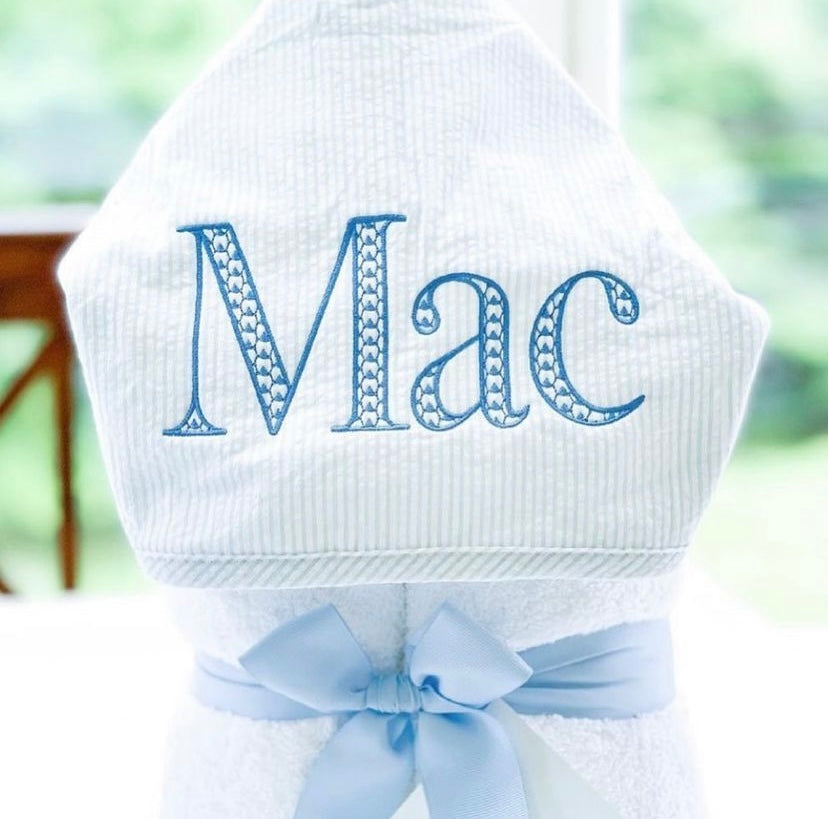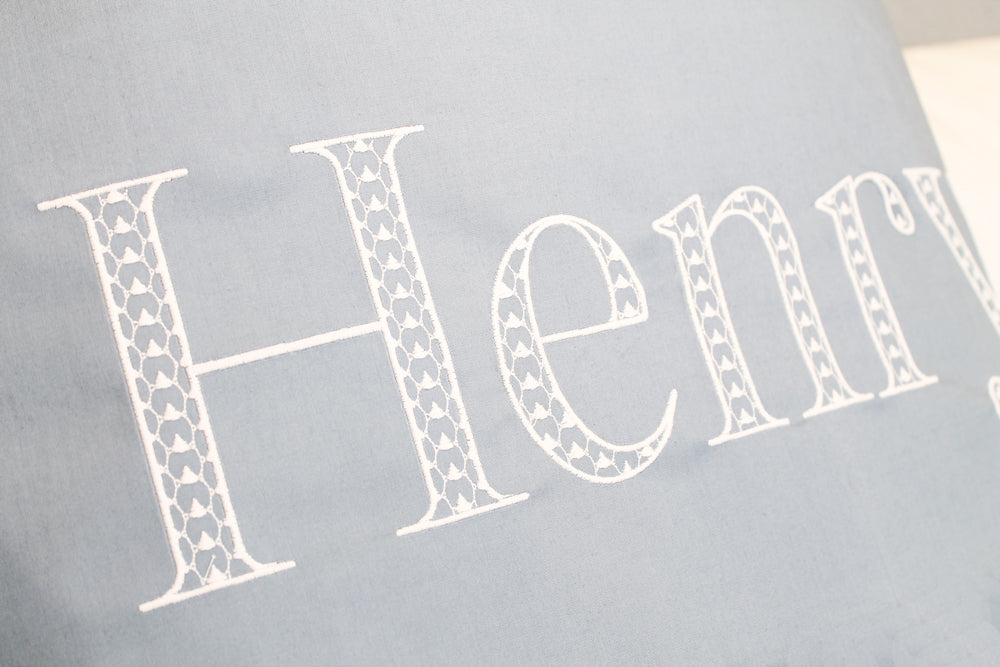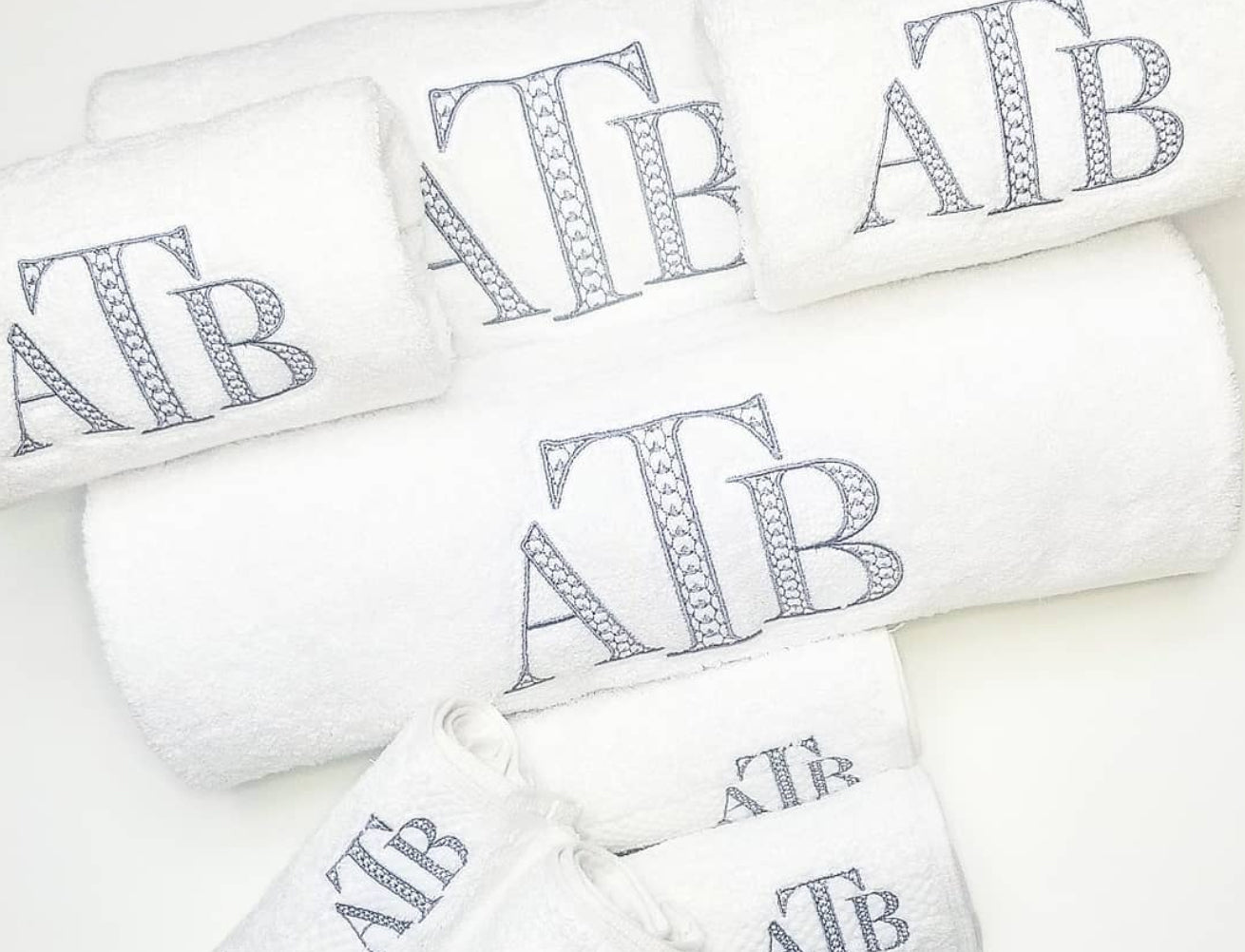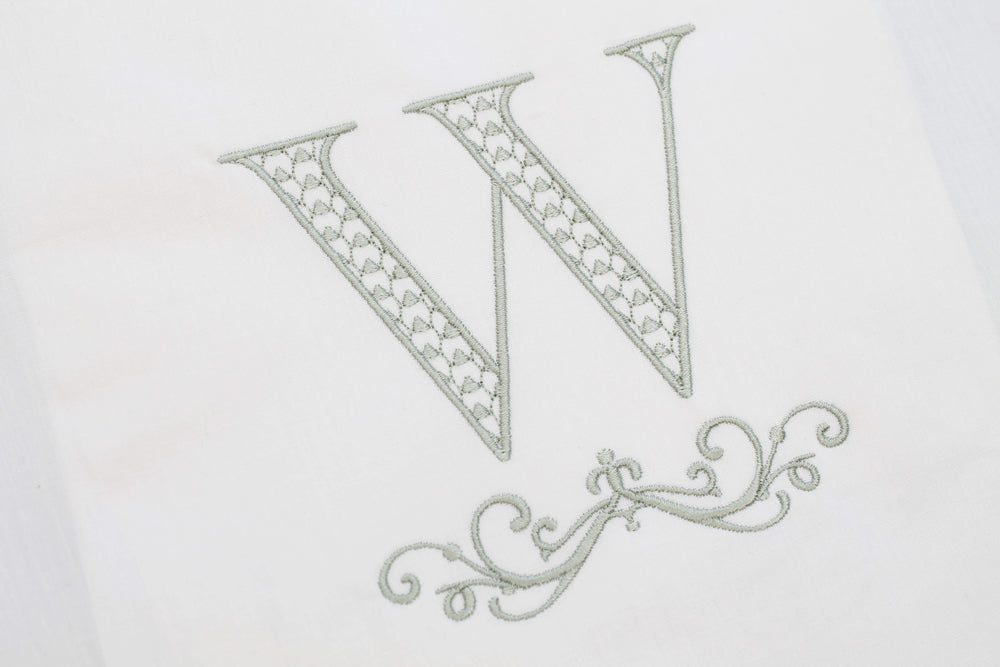
Single Adorn Serif Font for Embroidery
Our Single Adorn Serif Font is an amazing collection of 26 uppercase and 26 lowercase letters plus numbers 0-9 and punctuation. This font features a beautiful and unique fill pattern. This package includes:
Perfect for embroidery, the careful attention in the digitization of each design makes personalization unique and beautiful!